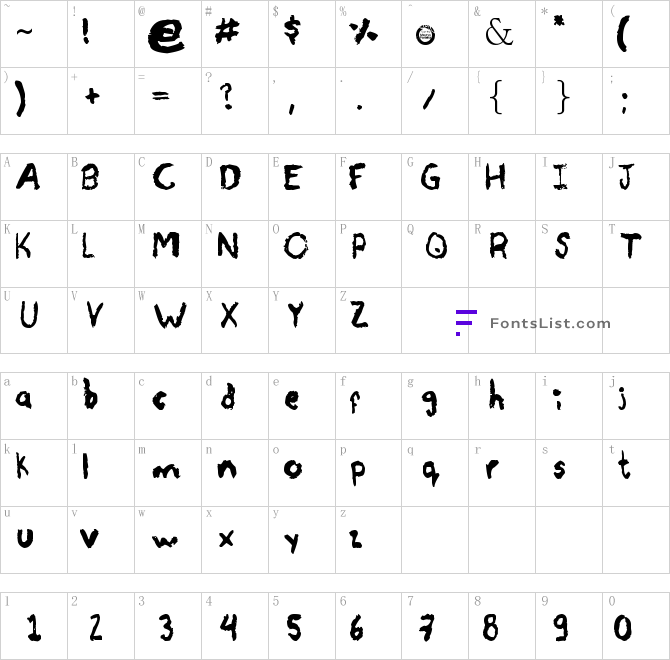
- Font Name:Ah Carbon!
Ah-Carbon!.ttf is a very beautiful artistic font, Ah-Carbon!.ttf is widely used in the design and printing of various books and pictures,Ah-Carbon!.ttf has a strong visual impact,Ah-Carbon!.ttf is a commonly used font in newspapers, magazines and books, and is used in posters, e-commerce Poster design, store design, logo design, font design and other fields.Ah-Carbon!.